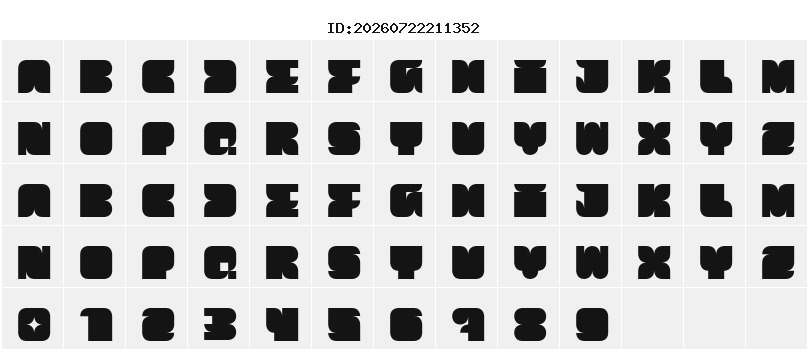
About MuchBolder.otf
MuchBolder.otf is a modern, elegant sans-serif font designed for ultimate readability and visual harmony. Perfect for branding, headlines, web design, and print materials.